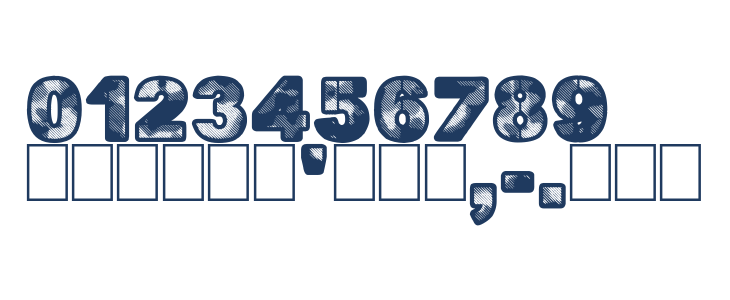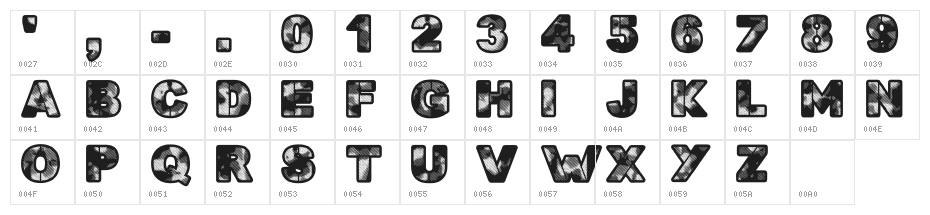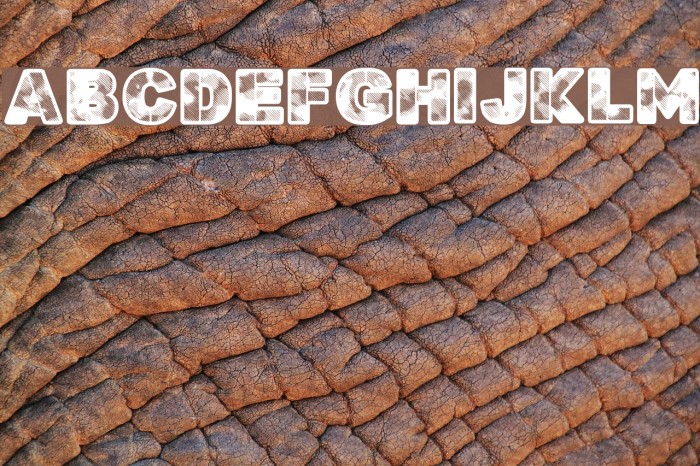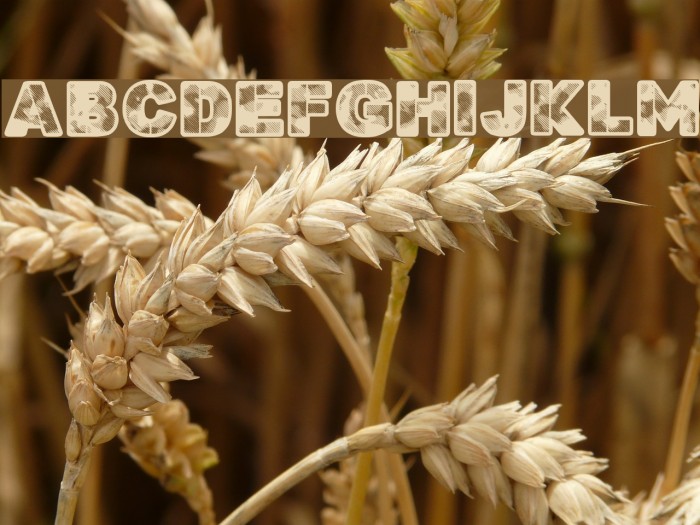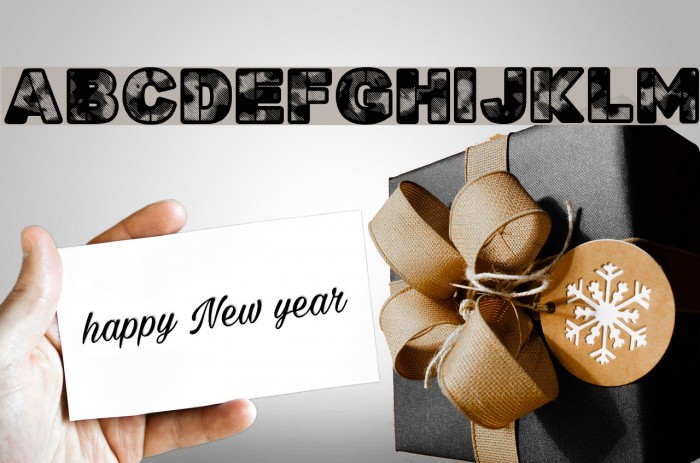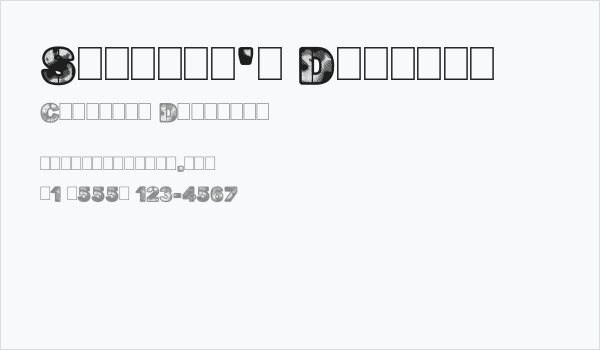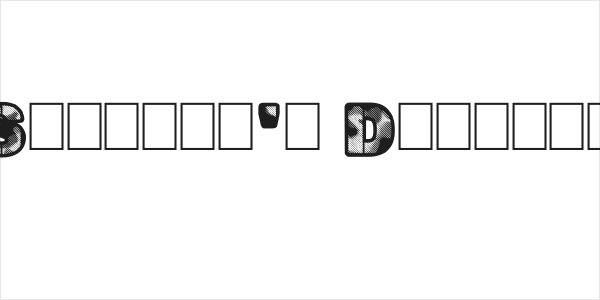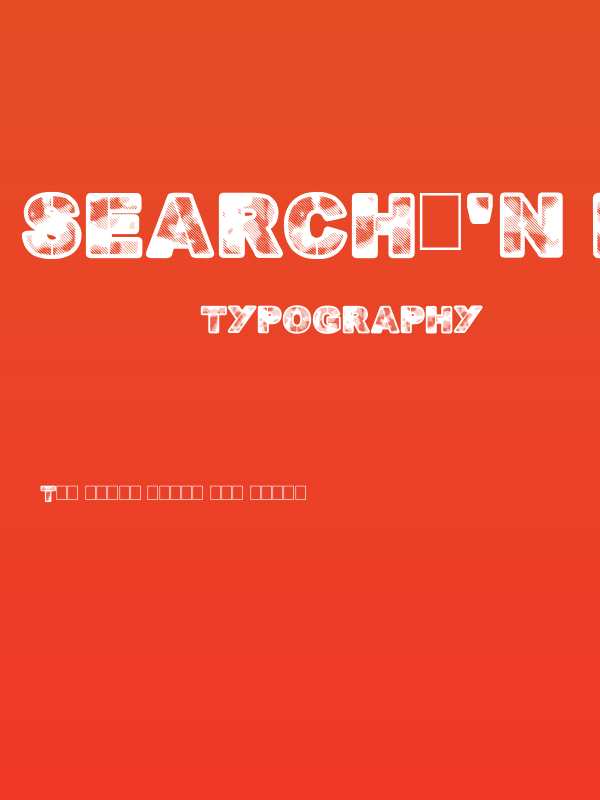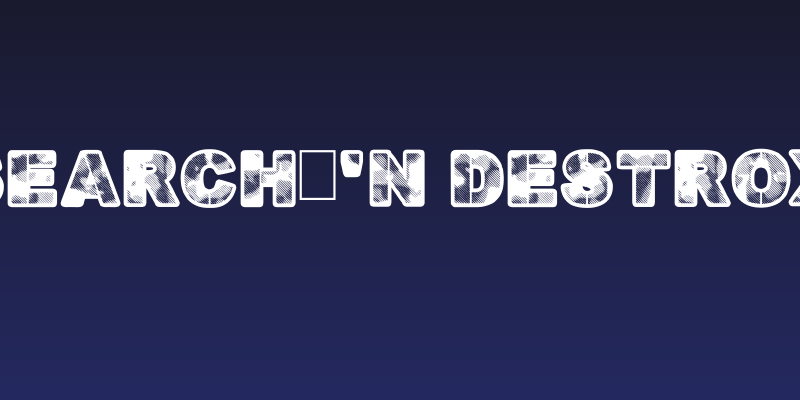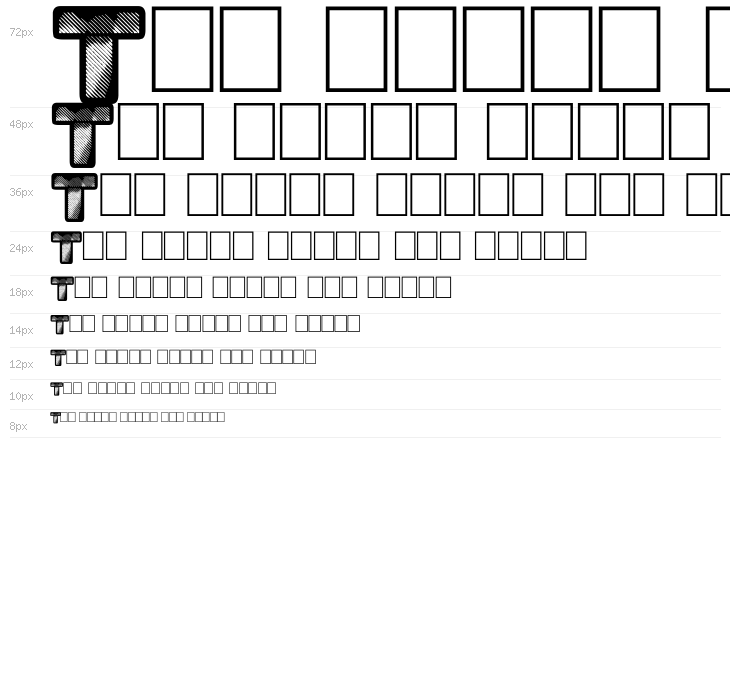
Search'n Destroy Font
Search'n Destroy Description
This font features a bold, decorative style with a unique textured pattern inside each character, resembling a scratched or distressed effect. The letters are all uppercase, with a strong, impactful presence. The design includes a shadow effect that adds depth and dimension, making it stand out. The numbers and special characters follow the same stylistic approach, ensuring consistency across all elements. This font is ideal for projects that require a bold statement and a touch of ruggedness or industrial flair.
| Proposed Projects | Ideal for poster designs, album covers, branding for edgy or industrial-themed products, and any project needing a bold, impactful typeface. |